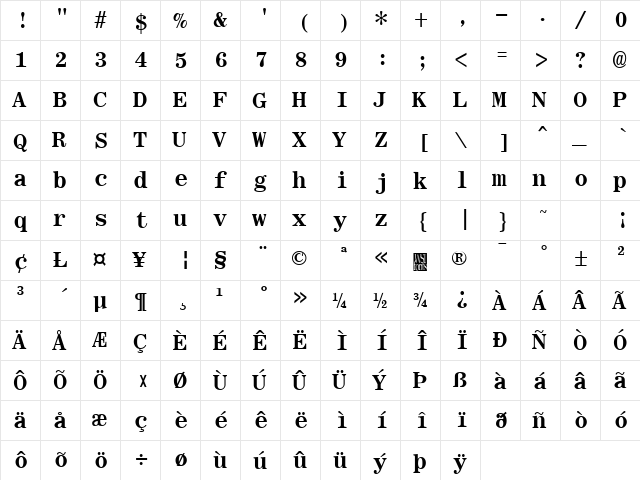
RomanFixedWidth Bold
Design Context for RomanFixedWidth Typeface
RomanFixedWidth takes a measured approach to typography — its balanced proportions and neutral character make it a reliable workhorse for both digital and print work. The heavy weight commands attention and anchors typographic hierarchies.